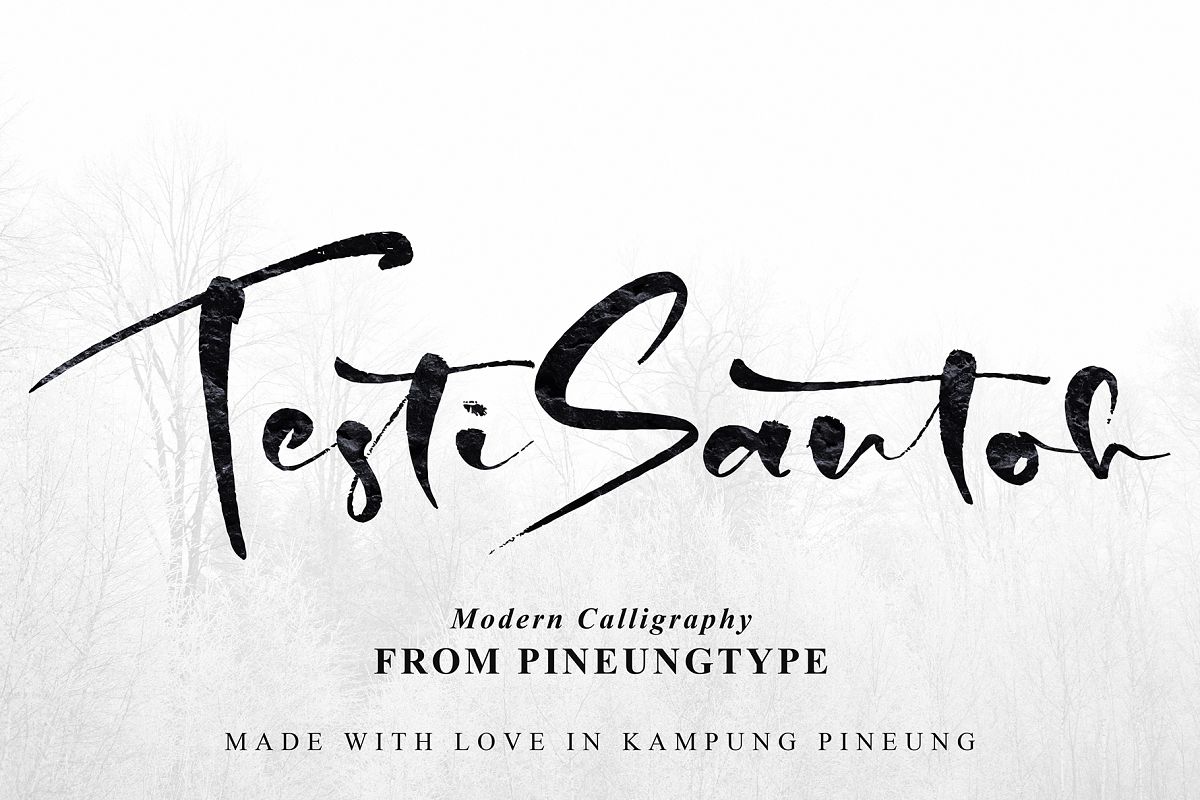
TestoSantoh
TestoSantoh Handwritten font, this font will perfect for many different project ex: quotes, logo, blog header, poster, banding, fashion, apparel, letter, invitation, stationery, etc...